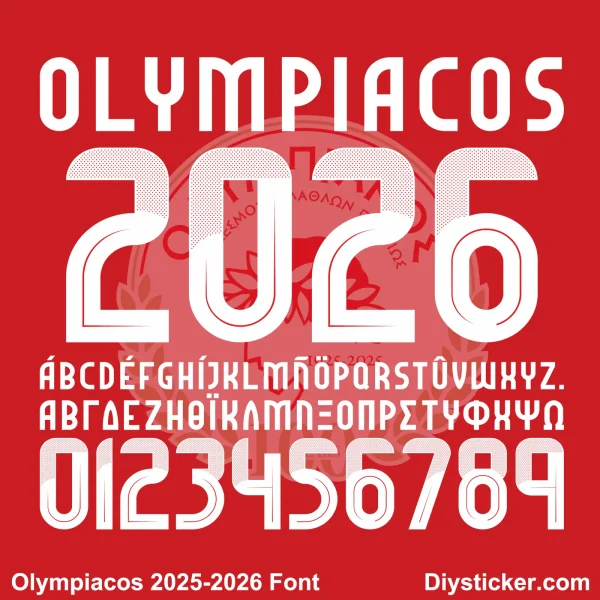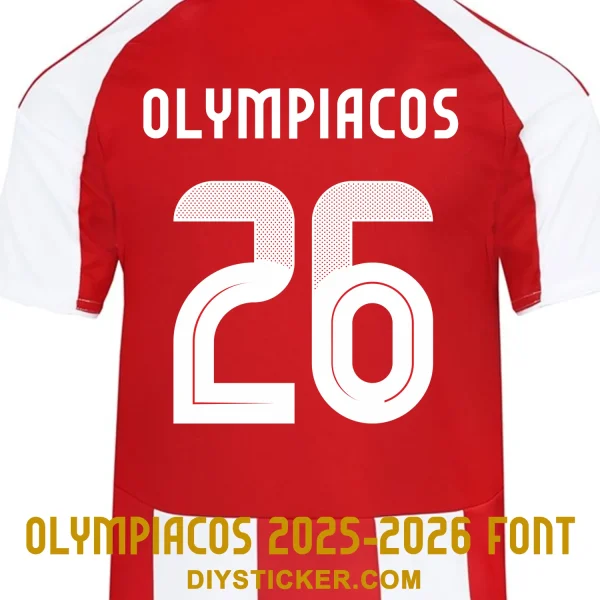
Craft authentic kits for the Greek giants! This premium digital asset features the full Olympiacos 2025-2026 Font and Numbers, designed with their distinctive modern half-tone gradient pattern and inline curves for stunning custom jersey restorations and sports apparel design.
Complete character map including both Latin and full Greek alphabets.
Bring elite European football aesthetics straight to your design studio. This commercial-grade digital file pack gives you immediate access to the official Olympiacos 2025-2026 font style worn during their competitive campaigns. The design boasts a hyper-modern, elongated block aesthetic featuring a unique gradient dot-matrix/half-tone pattern on the upper arches of the numerals, paired with a sleek geometric inline cutout groove that accentuates its athletic profile.
True-to-Life Bilingual Character Architecture
A-Z Latin Uppercase Letters: Perfectly balanced letterforms built for international cup matches and player names.
Full Greek Alphabet Set (Α-Ω): Complete Greek lettering array (
ΑΒΓΔΕΖΗΘΙΚΛΜΝΞΟΠΡΣΤΥΦΧΨΩ) to ensure total accuracy for domestic league printing. -
0-9 Halftone Numbers: Striking numeric characters highlighted by fine-dot geometric gradient shading along the upper curves.
Does this font include the Greek alphabet letters?
Yes! Unlike standard western font files, our premium Olympiacos pack includes both the complete Latin uppercase alphabet and the full Greek character set to perfectly handle domestic player name variations.